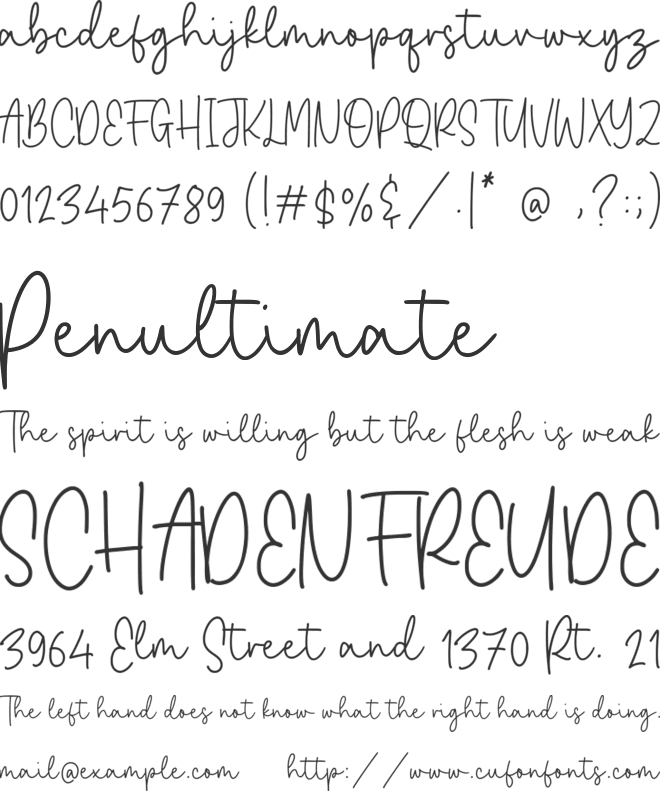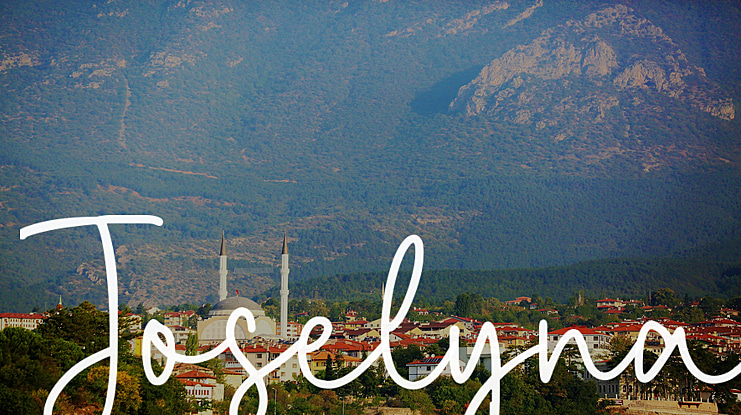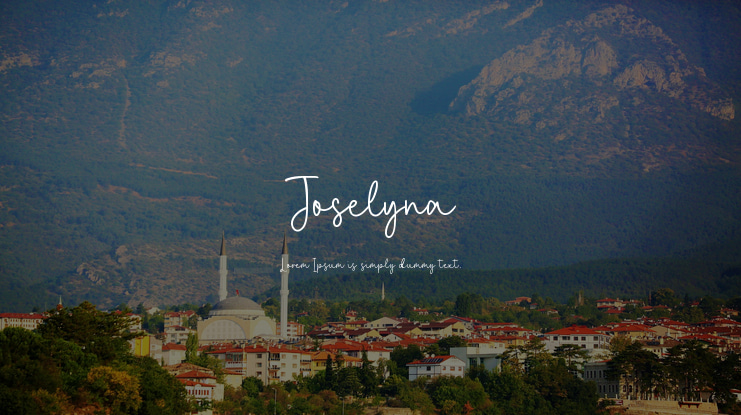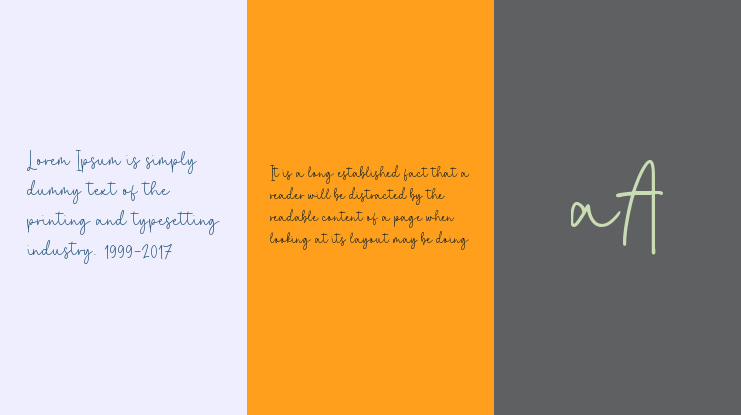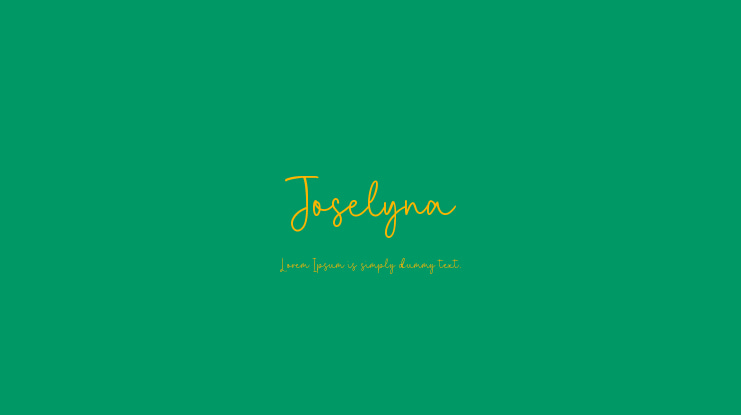
Joselyna Font
Proudly Present, Joselyna Font.
Joselyna is a Monoline Handwritten Font.
Joselyna is perfect for product packaging, branding project, megazine, social media, wedding, or just used to express words above the background.